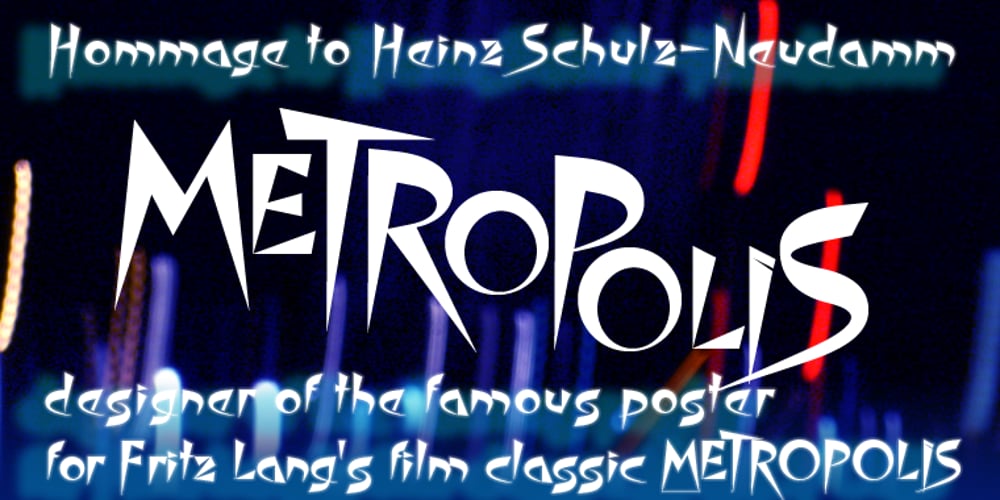
Heinz Font Family was designed by Gert Wiescher and published by Wiescher Design. Heinz contains 1 styles and family package options. Heinz is inspired by the poster design of Heinz Schulz-Neudamm for Fritz Lang’s famous silent movie Metropolis. Heinz Schulz-Neudamm did quite a lot of work for the German branches of big American movie companies like 20th Century Fox or MGM. His most famous work is probably the title lettering for the Metropolis movie. The original drawing for that poster sold in 2005 in London for 398.000 Pound Sterling (approx. US $ 600.000). I designed a completely new font in the feeling of Heinz’s lettering. Enjoy. Yours historically, Gert Wiescher